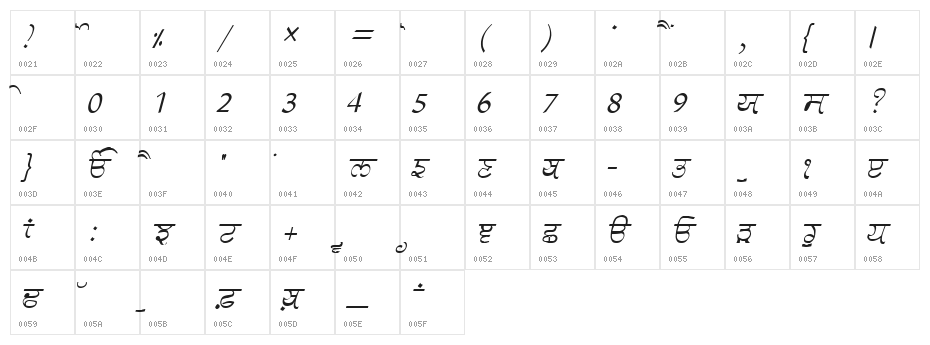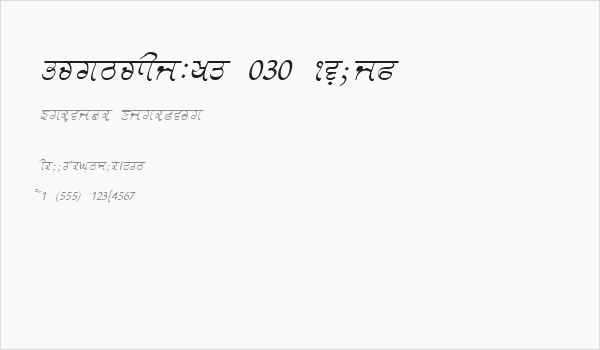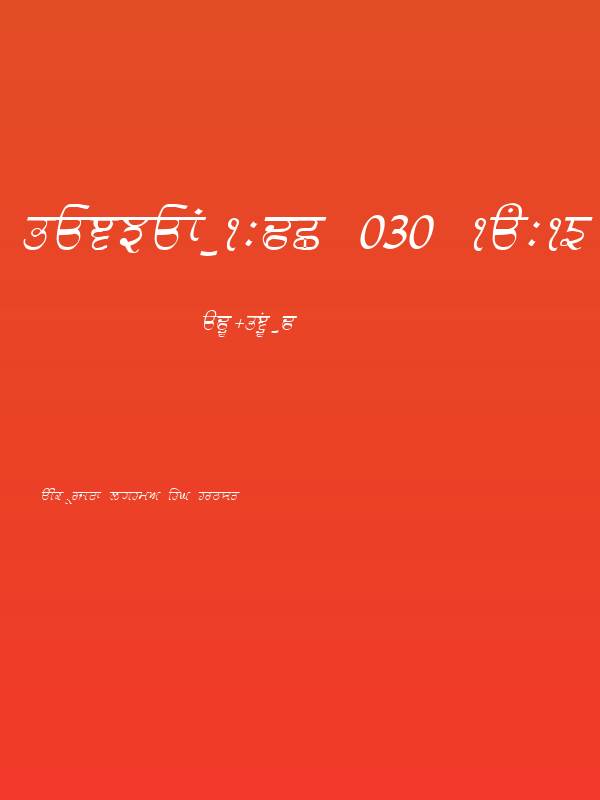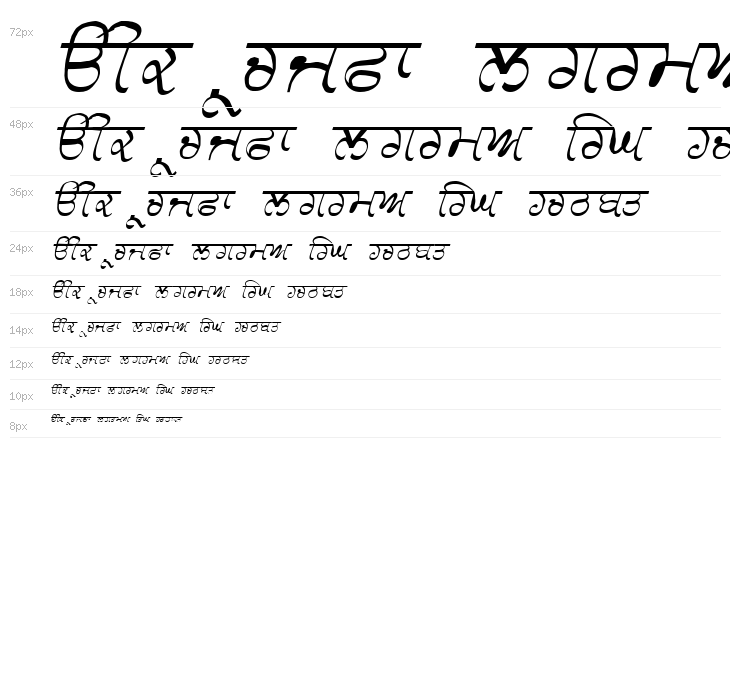
GurmukhiLys 030 Italic Font
GurmukhiLys 030 Italic Description
This font presents a beautifully crafted Gurmukhi script with an elegant italic style. The characters are gracefully slanted, adding a dynamic and fluid appearance. The strokes are smooth and consistent, with a moderate contrast that enhances readability while maintaining an artistic flair. The numerals are clear and well-defined, complementing the script's overall aesthetic. Special characters are thoughtfully integrated, maintaining the font's cohesive look. This font is ideal for projects that require a touch of sophistication and cultural authenticity.
| Overall Style | Elegant, Cultural |
| Use Case | Headlines, Artistic projects, Cultural publications |
| Proposed Projects | Ideal for cultural publications, artistic projects, invitations, and branding that require a touch of elegance and authenticity. |